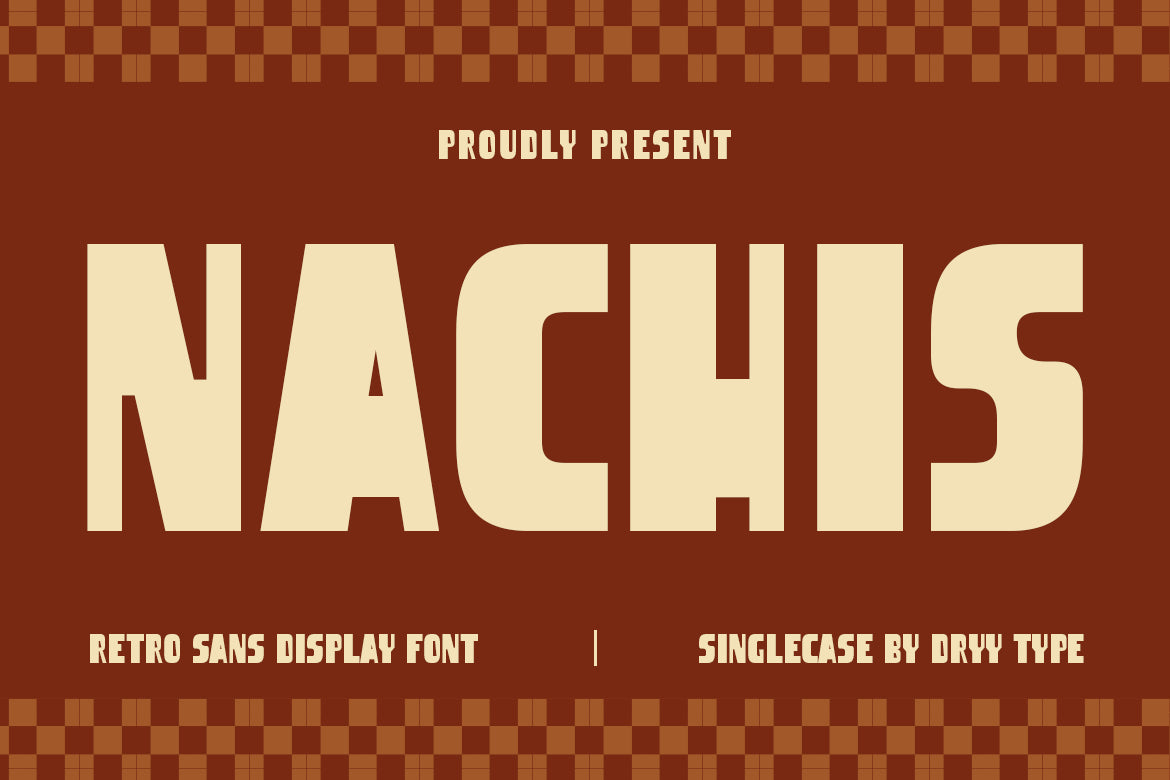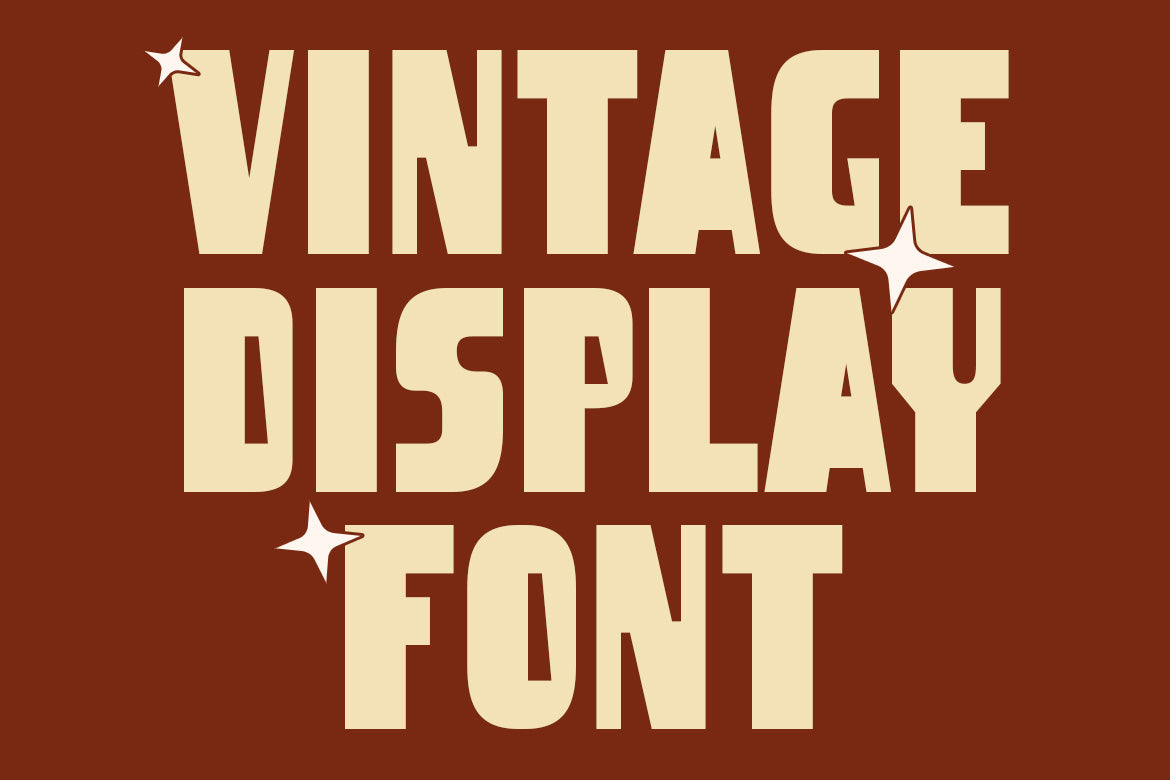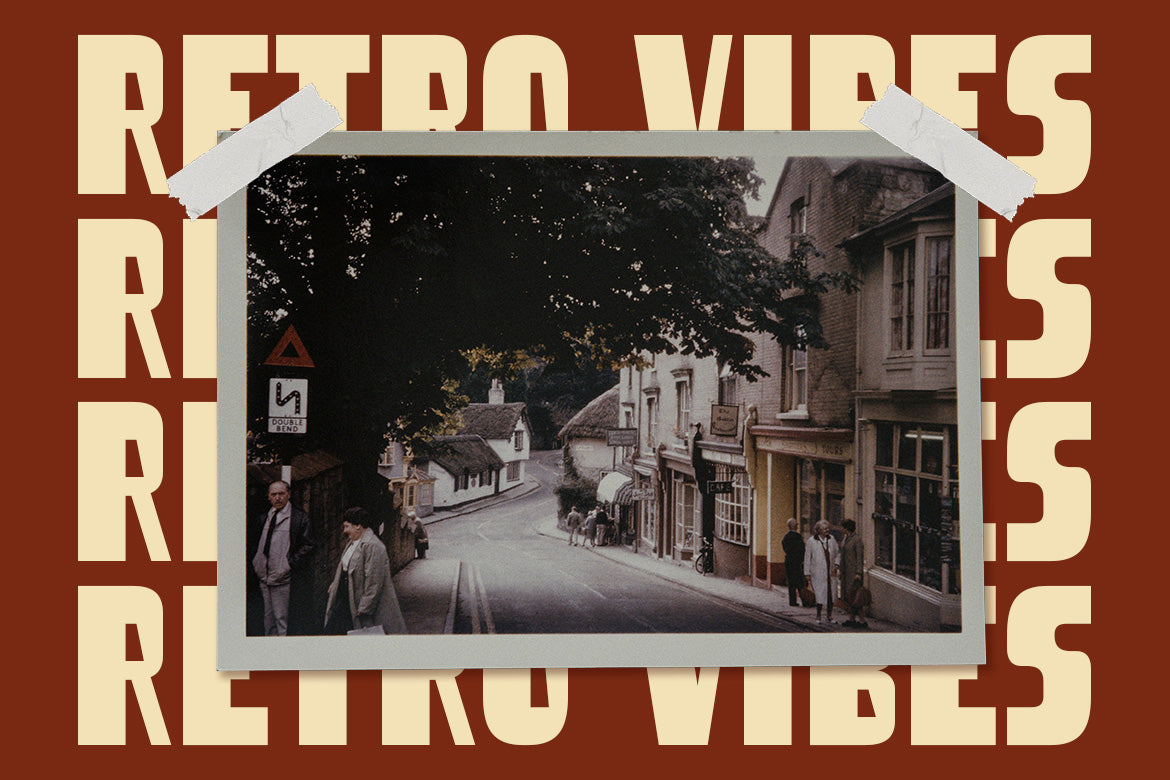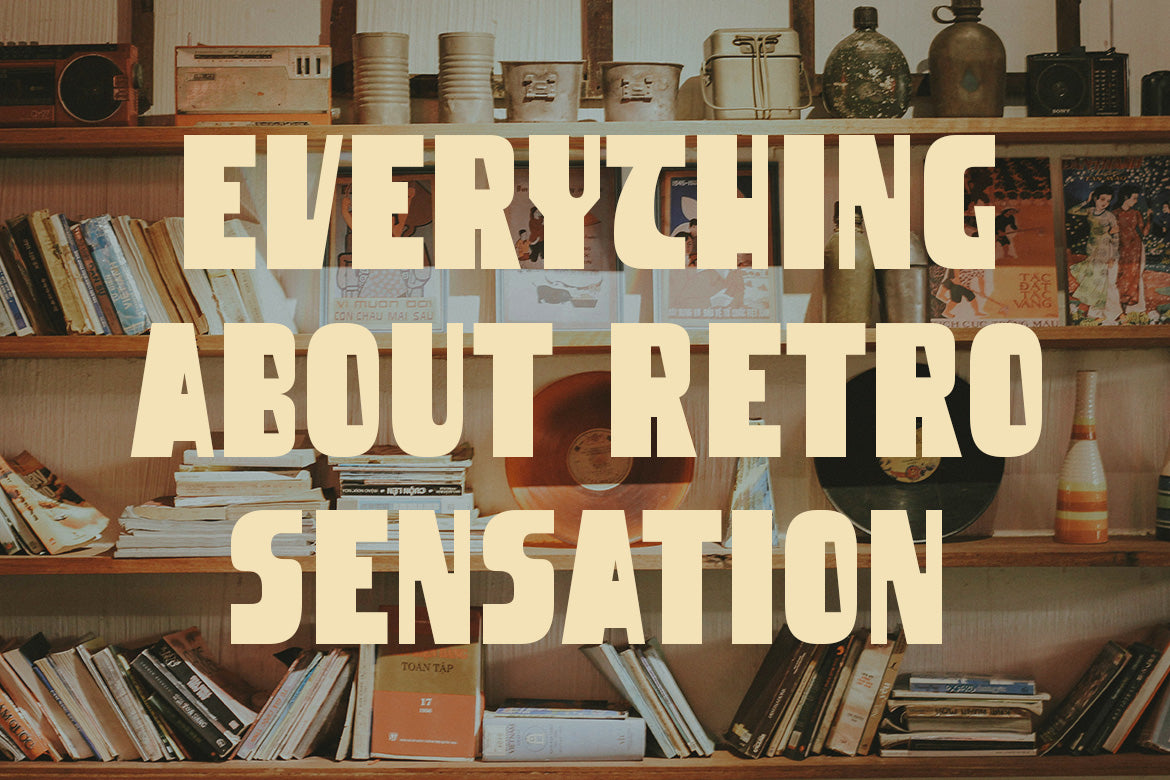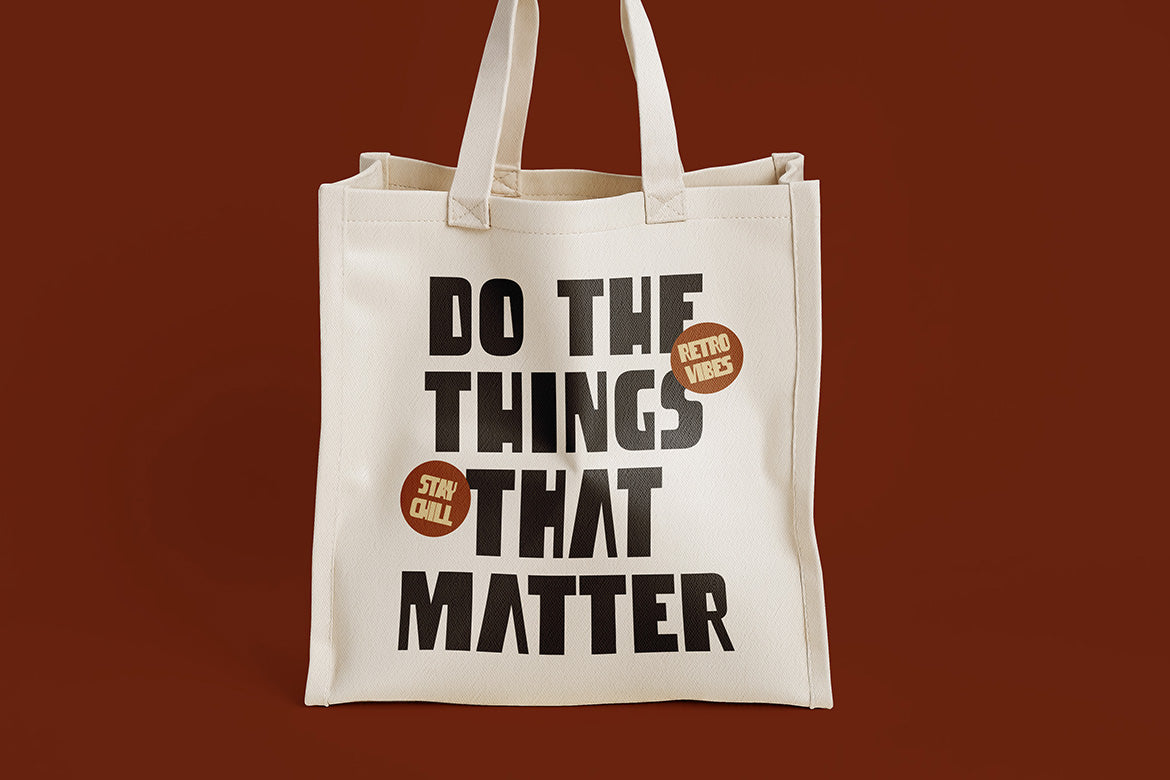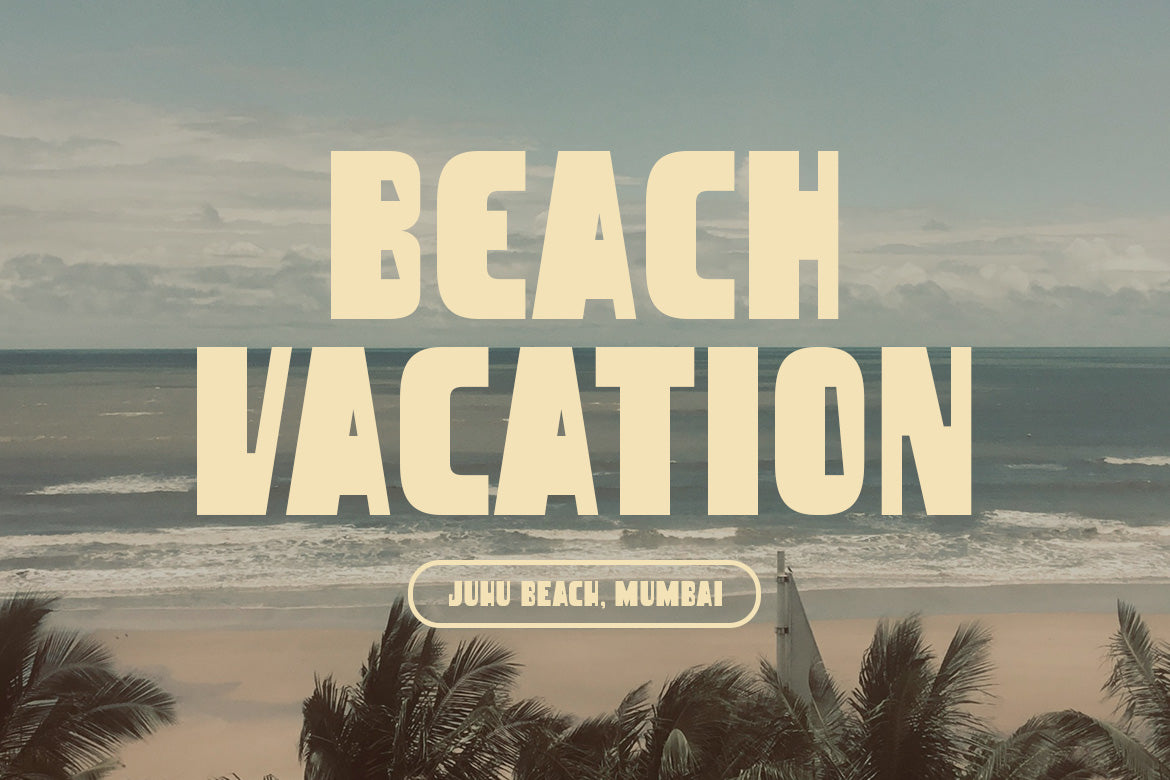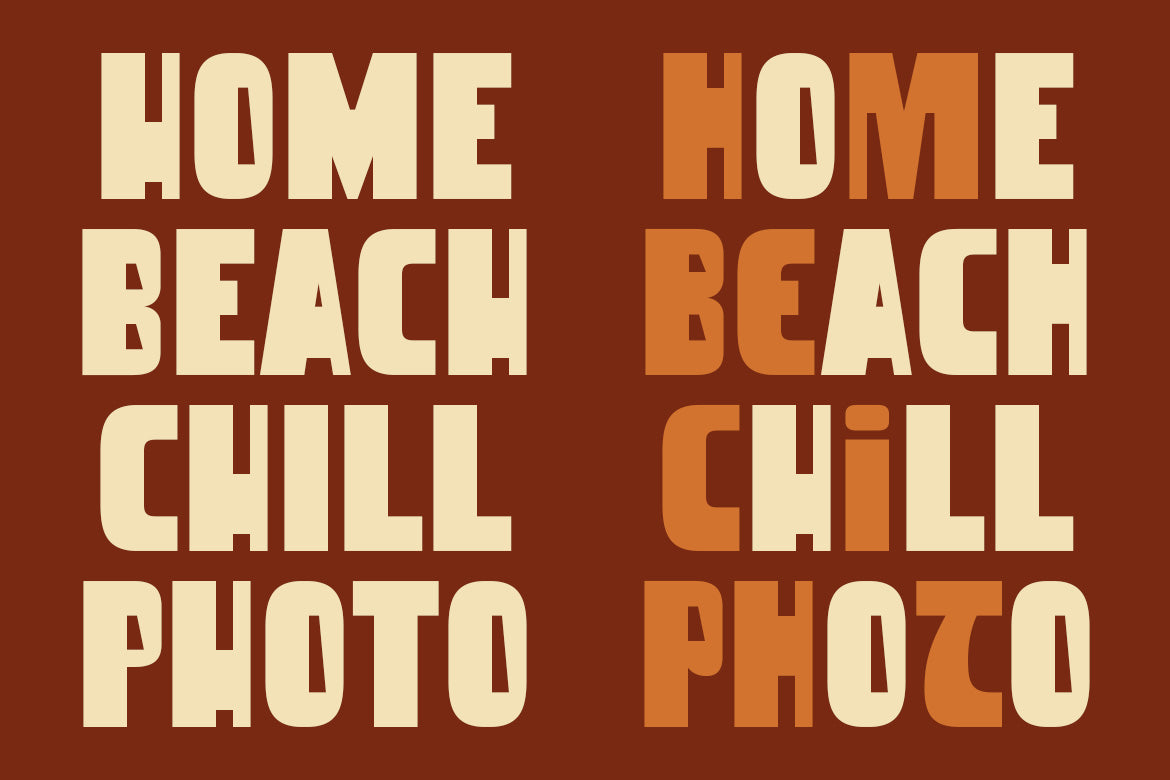
DT Nachis - Retro Display Font
dryy type
DT Nachis - Retro Display Font
DT Nachis font by dryy type is a Retro display font, This font I created is meaningful & very versatile, it goes well with various designs, elevating them to the highest level. Add this font to your favorite creative ideas and see how it comes to life!
Features : Singlecase, Alternate, Numerical, & Multilingual Support